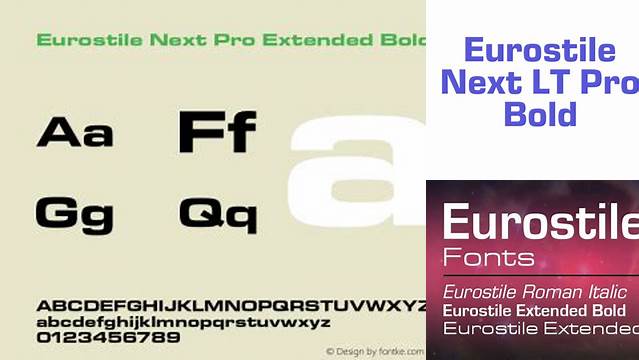
Eurostile Next Bold: Free Font Download Guide
Hey guys! If you're on the hunt for a classic, powerful font, then you've probably stumbled across Eurostile Next Bold. It's a real workhorse, known for its clean lines and modern feel. And the best part? You can often find it as a free download! This guide will walk you through everything you need to know about snagging this fantastic font, along with some cool tips and tricks to make the most of it. Let's dive in!
Eurostile Next Bold Font: What Makes It Special?
Alright, let's talk about what makes Eurostile Next Bold such a popular choice, yeah? First off, it's got this super recognizable look. The geometric shapes and strong, bold weight give it a really authoritative feel. Think about it: it's perfect for headlines, logos, and any design where you want to grab attention. This font family isn't just about the bold version, either; there's a whole range of weights and styles, but the bold is definitely a standout. It's got that timeless quality that makes it versatile enough for everything from tech companies to fashion brands. The font's legibility is also a major win. Even at smaller sizes, it’s easy to read, which is crucial for both print and digital designs. That’s why it is often used for user interfaces or any places that needs good readability. Plus, the paneuropean aspect means it supports a wide range of languages, making it a great choice for international projects. So, if you're looking for a font that’s both stylish and functional, Eurostile Next Bold is a strong contender. It's the kind of font that will elevate your design and make it look professional. It's not just a font; it's a statement. And the bold weight? It’s like the exclamation point of the font world, making your message POP!
This font is an excellent choice for headlines because the bold weight ensures that your text will stand out. It is commonly used in logos and branding materials, providing a strong visual identity. The font's versatility makes it ideal for a wide range of applications, including websites, posters, and presentations. It is also suitable for user interfaces and digital design, ensuring clear and readable text. Its paneuropean support allows for use in projects across various languages, making it a globally useful font. Plus, its clean lines and geometric shapes give it a modern and professional feel. This font family isn't just about the bold version, either; there's a whole range of weights and styles. It is the exclamation point of the font world, making your message POP! It adds a touch of sophistication and authority to your designs.
Eurostile Next Bold in Branding: Making a Statement
Let's get creative now! Have you thought about using Eurostile Next Bold in your branding? It can make a huge impact, guys! The bold weight is perfect for creating a strong brand identity. The font's geometric shapes and clean lines give it a modern, sophisticated look that can make your brand stand out. Think about it: the font's simplicity allows it to be easily recognizable and versatile. It works well in logos, headlines, and even body text, making your brand consistent across all your materials. Whether you're designing a website, business cards, or marketing materials, the bold version of this font is an excellent choice for headlines and calls to action. This makes your message more impactful and memorable. When using it in your branding, make sure the font complements your overall design aesthetic and matches your brand's personality. It is suitable for tech companies, fashion brands, or any brand that wants to project a sense of strength and reliability. To make sure that the font perfectly matches your brand's voice, use it along with other design elements, such as colors, images, and layout. When used correctly, it can enhance your brand and build customer recognition. It's not just a font; it's a key part of your brand's identity, shaping how people see and remember you.
Eurostile Next Bold vs. Alternatives: What Are the Options?
Okay, so you're digging Eurostile Next Bold, but what if you want to explore some other options? There are plenty of fonts out there that share some similarities. Let's compare a few, shall we? One great alternative is Helvetica Neue Bold. It's a classic sans-serif font known for its clean lines and excellent legibility. It shares a similar geometric structure with Eurostile Next Bold, making it another good choice for headlines and branding. Another option to consider is Futura Bold, a geometric sans-serif font that has a similar strong, clean look. It’s got a bold, impactful presence that's perfect for grabbing attention. Then, you've got Roboto Bold, which is a versatile and modern sans-serif font often used by Google. It’s known for its readability and clean design, making it a great option for both digital and print projects. Other options to consider include Open Sans Bold and Arial Bold, both of which are popular choices for their readability and widespread availability. When choosing an alternative, think about what you like about Eurostile Next Bold, like the bold weight and clean lines. Also, consider the readability, style, and license options to ensure they meet your needs. Always compare several options, and don't be afraid to test out different fonts in your designs to find the best fit. You can often find many of these fonts in a variety of formats, including OpenType and TrueType, making them suitable for different design platforms. Take the time to explore different fonts and styles to make the best choice for your designs. Comparing fonts helps ensure your choice aligns with your project needs and creative vision. Selecting the best font ensures your designs stand out.